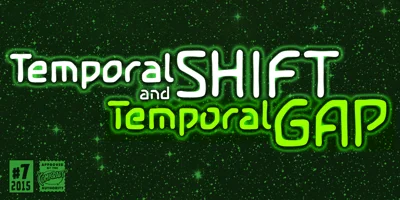
Temporal Shift & Gap Font
Temporal Shift & Gap Font is a modern and experimental duo font set designed to capture the essence of time and space in your creative projects. Please note: you must purchase a license for commercial use — this font is available as a strictly for testing and personal use.
Perfect for futuristic branding, digital art, editorial headlines, tech websites, sci-fi posters, and innovative advertising, Temporal Shift & Gap Font offers a unique visual experience that stands out.
What makes these fonts exciting is their dynamic interplay—“Temporal Shift” brings sharp, angular shapes while “Gap” complements with minimalist and spacious letterforms. Together, they create a captivating contrast that embodies movement and stillness.
The Temporal Shift & Gap font family includes Regular and Bold weights, providing versatility to design bold headlines or sleek body text with a modern edge.
If you want your projects to convey innovation, depth, and a sense of temporal fluidity, Temporal Shift & Gap Font is your perfect pick. Download it today, explore its striking duality, and let your designs push the boundaries of time and space.